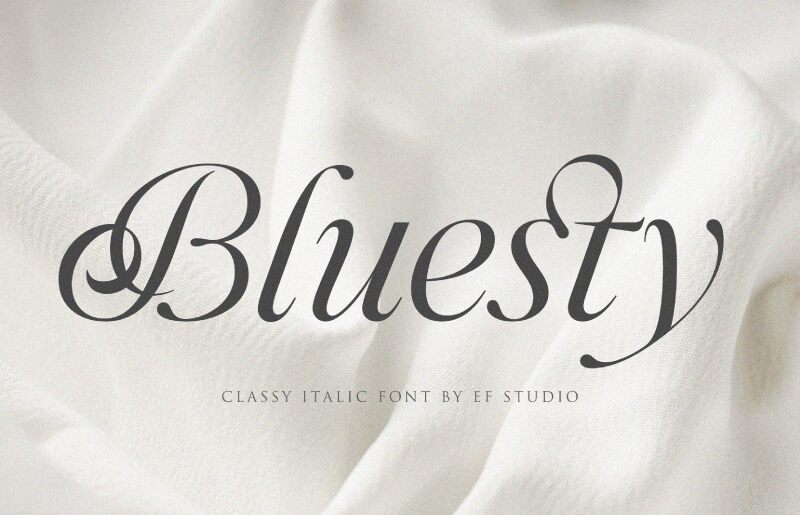
Bluesty font, designed by Ef Studio, is an elegant calligraphy typeface with a flowing and sophisticated style. Its ornamental and decorative features give it a refined appearance suitable for projects that require a touch of finesse. Perfect for making a statement, Bluesty brings charm and grace to any design.
This free calligraphy font is ideal for wedding invitations, greeting cards, branding projects, logos, photography watermarks, social media posts, posters, magazines, fashion designs, book covers/magazines banners.
Features: Ligatures & Alternates